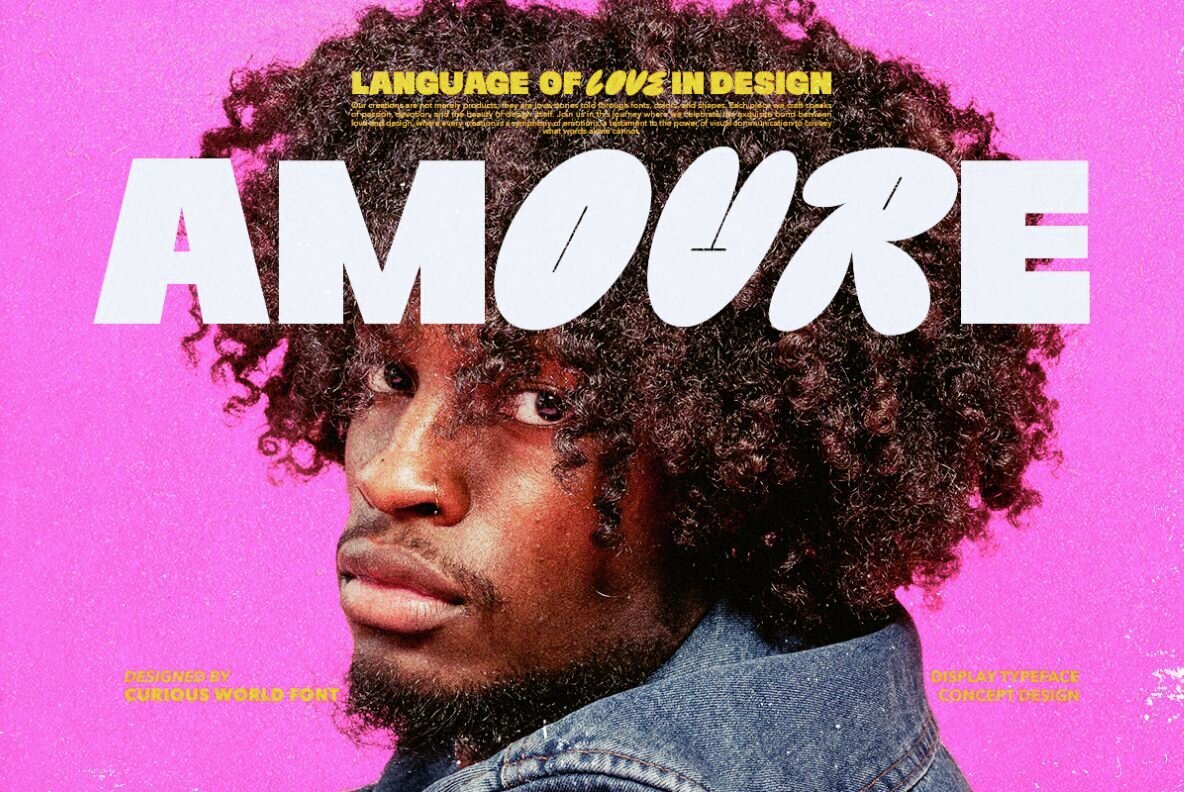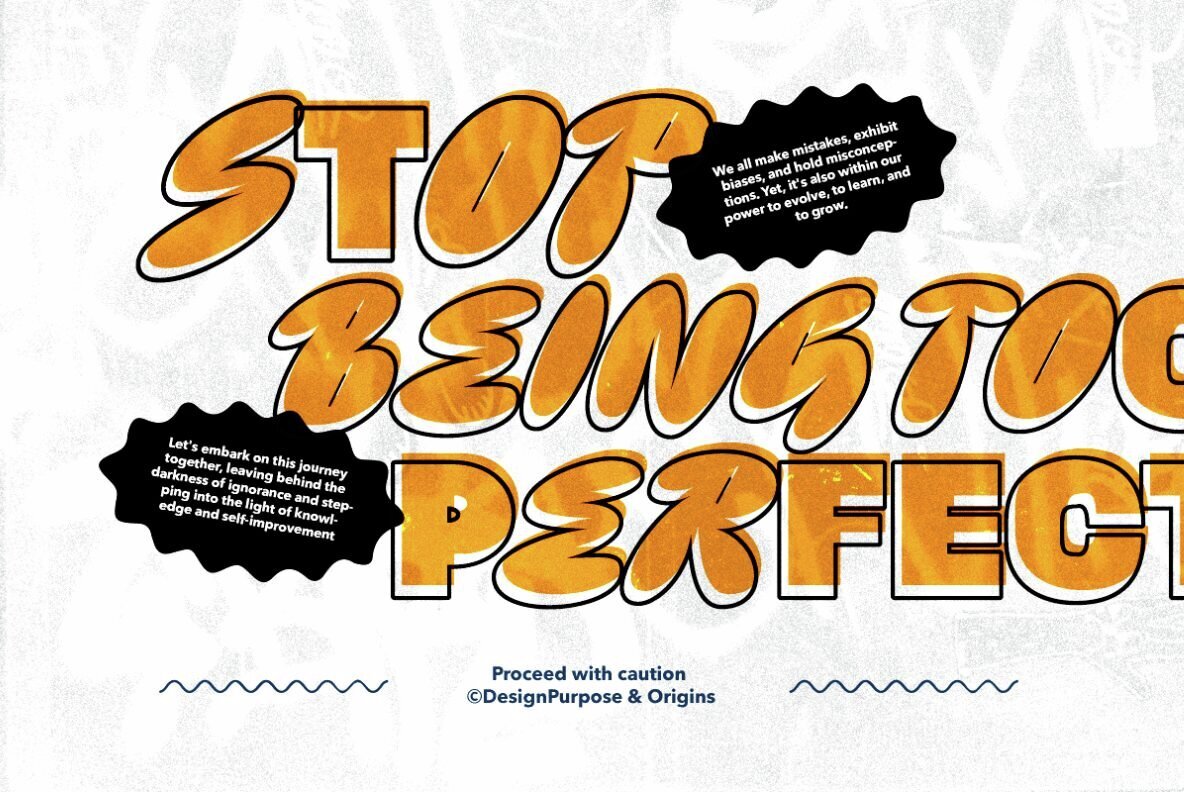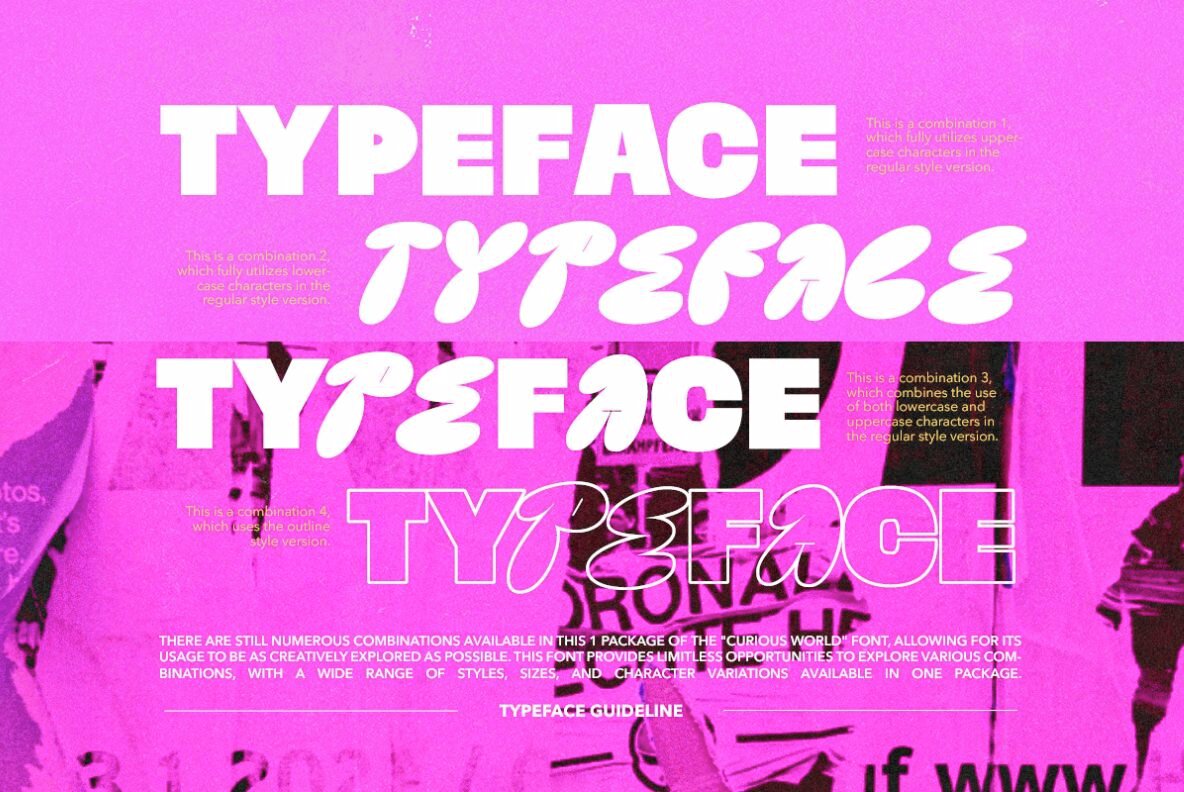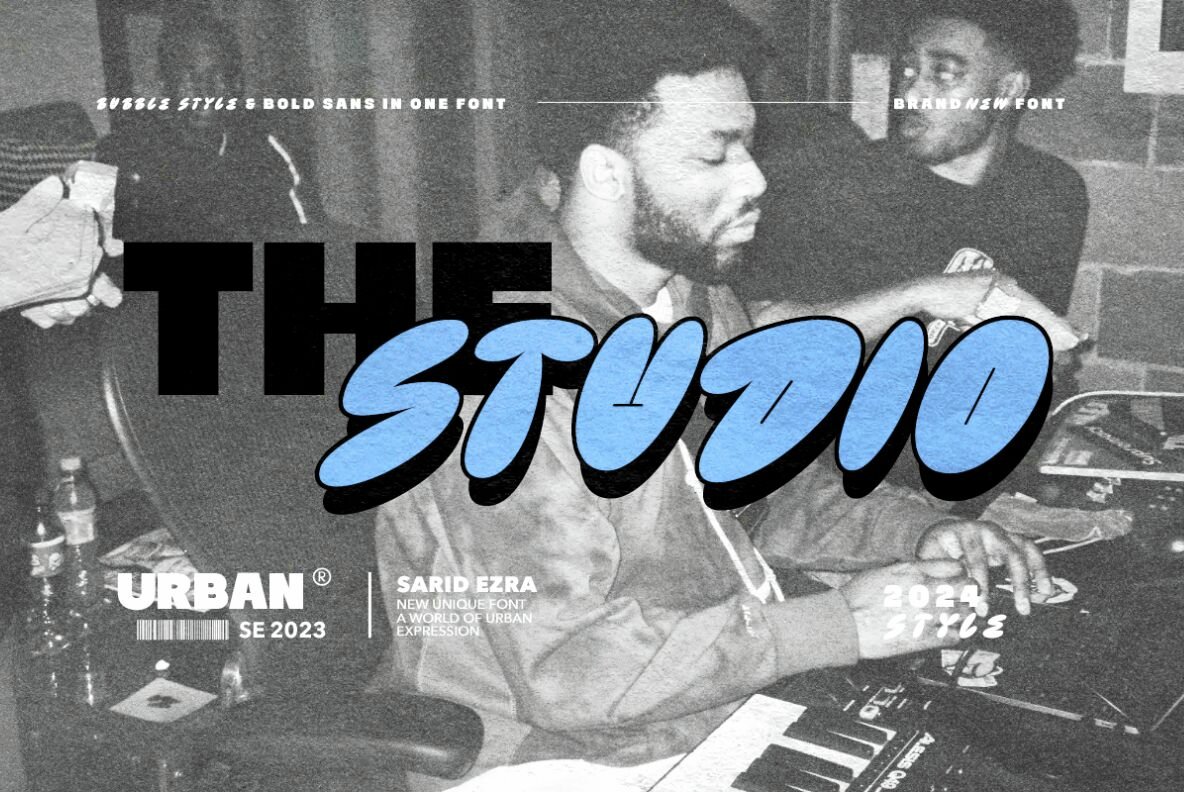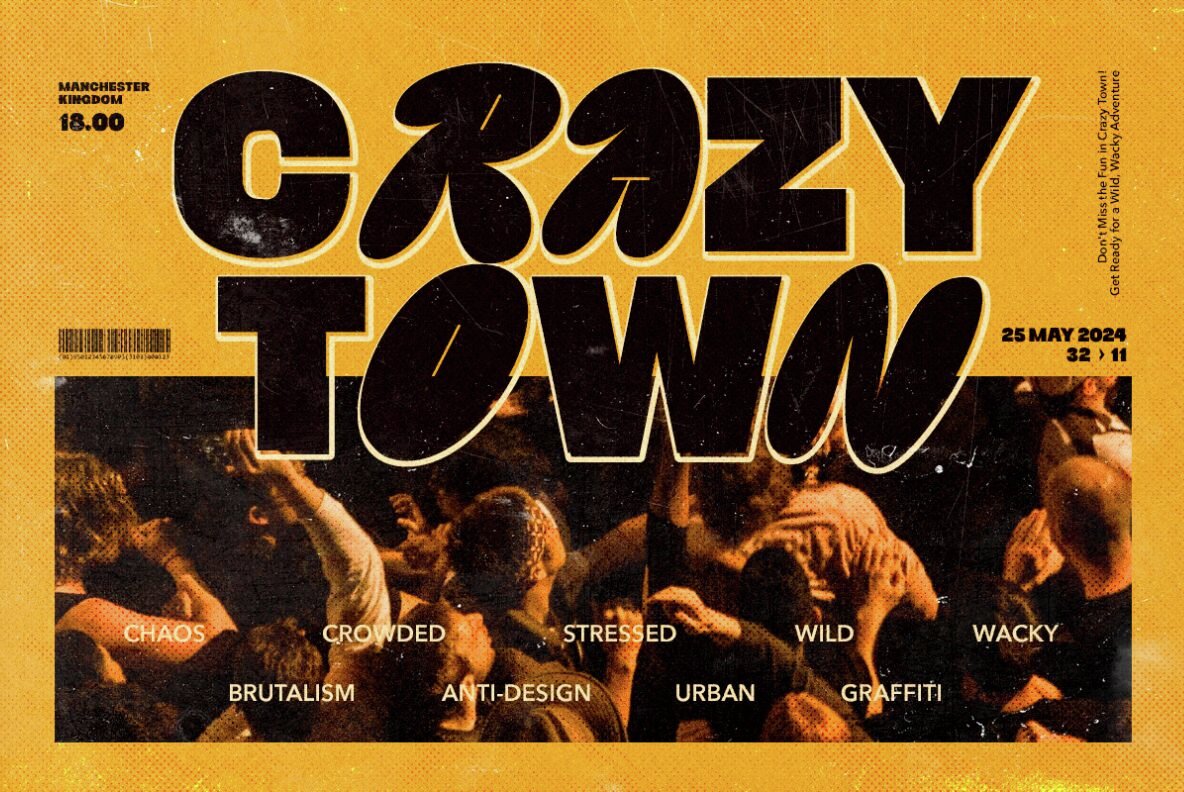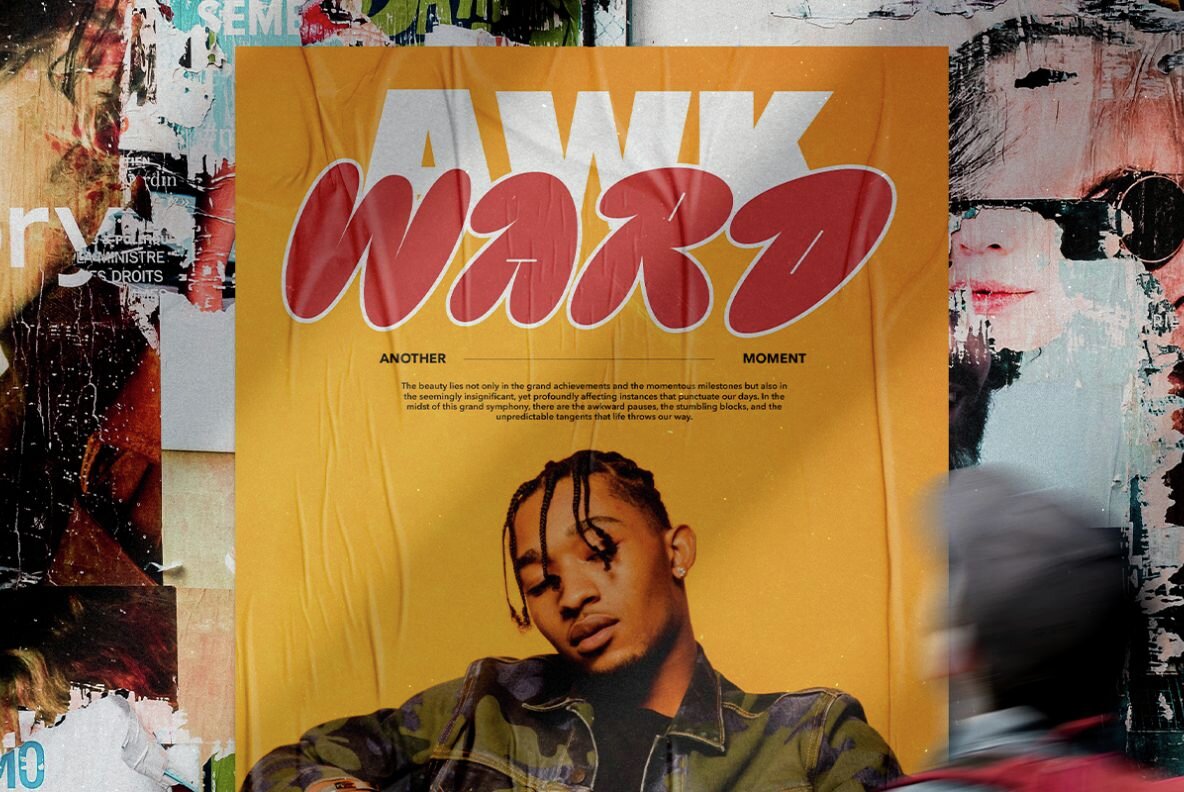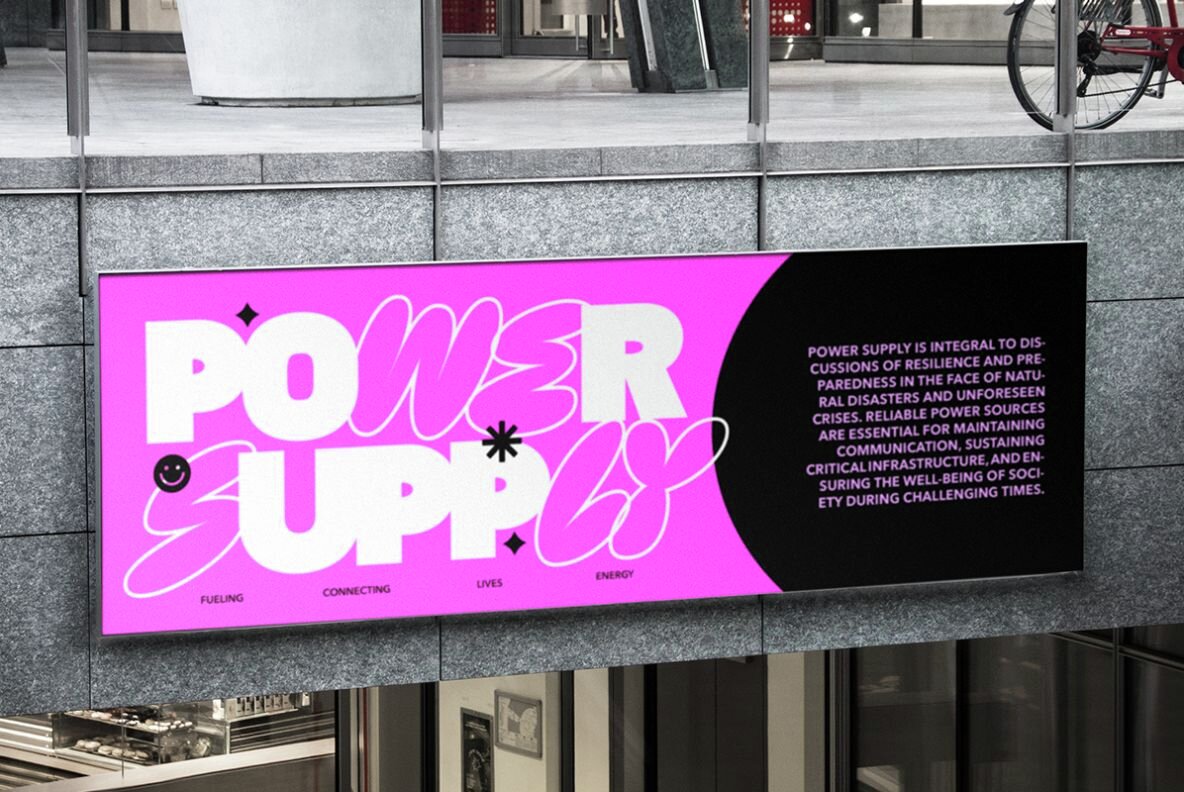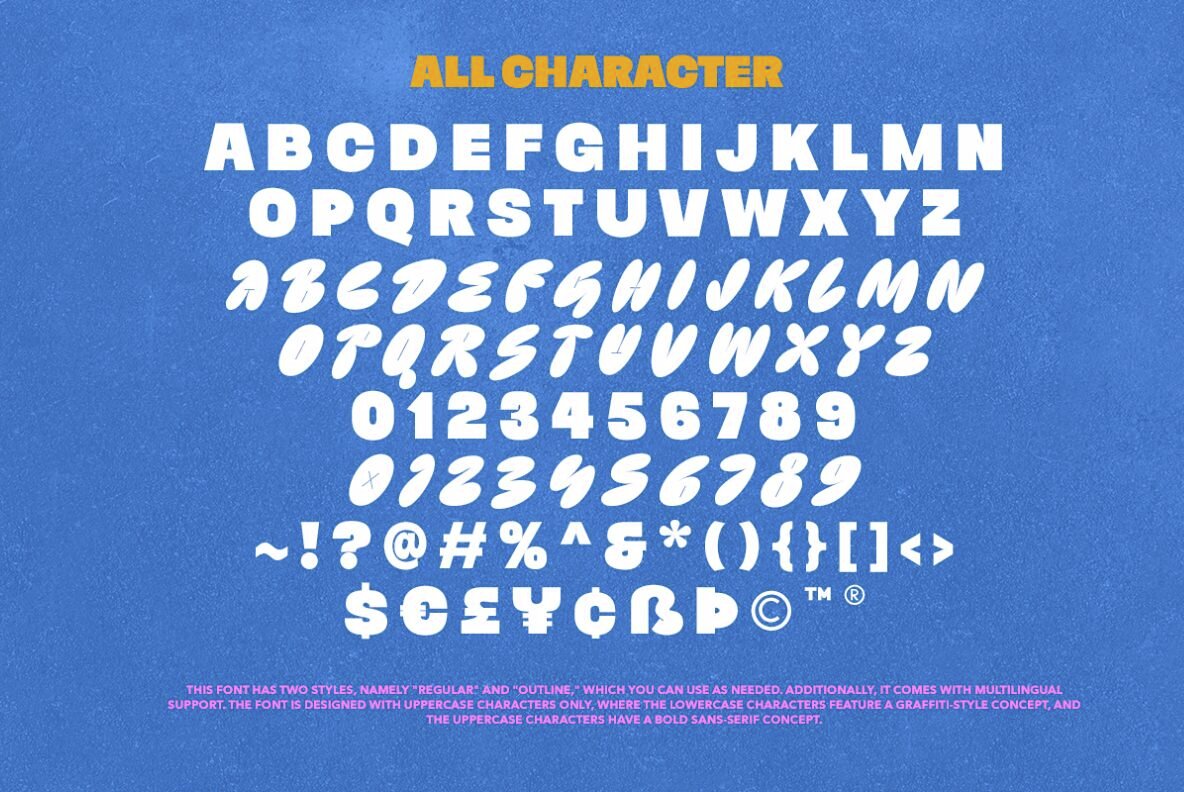
Curious World Font
Curious World Regular
Curious World Outline
Curious World is a combination of bubble and bold sans in one font. With uppercase being sans and lowercase being bubble, you can use both in one word to make it more interesting and stunning. You can use this font for many purposes, especially for street art that require wild and bold font that can make a statement. Including alternates number for the bubble style that you can access it from opentype feature. This font also support multi language!